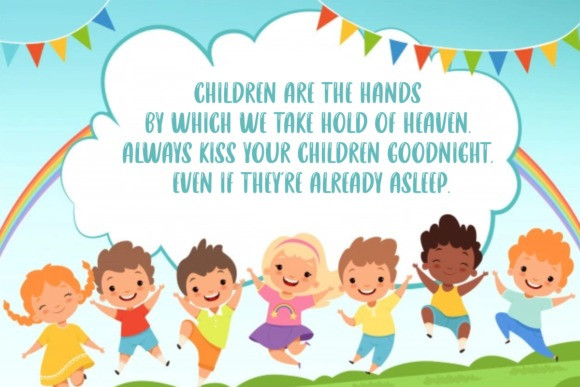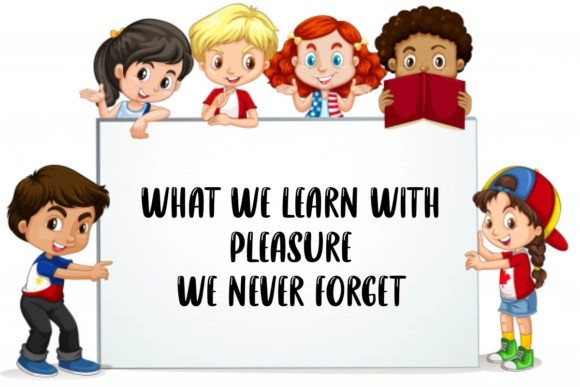
Love Radiate Display Font
Love Radiate a joyful and casual handwritten font. Its natural and unique style makes it incredibly fitting to a large pool of designs. The only limit is your imagination!